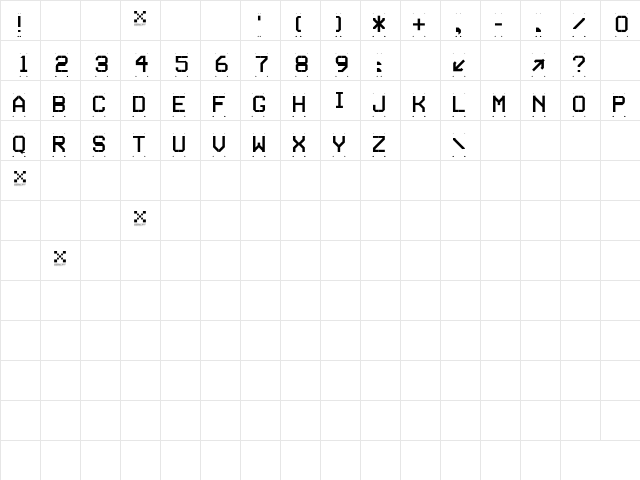
SERIESD Regular
Design Context for SERIESD Typeface
SERIESD offers clean, dependable letterforms without strong stylistic allegiance, making it a practical choice for designers who need flexibility.